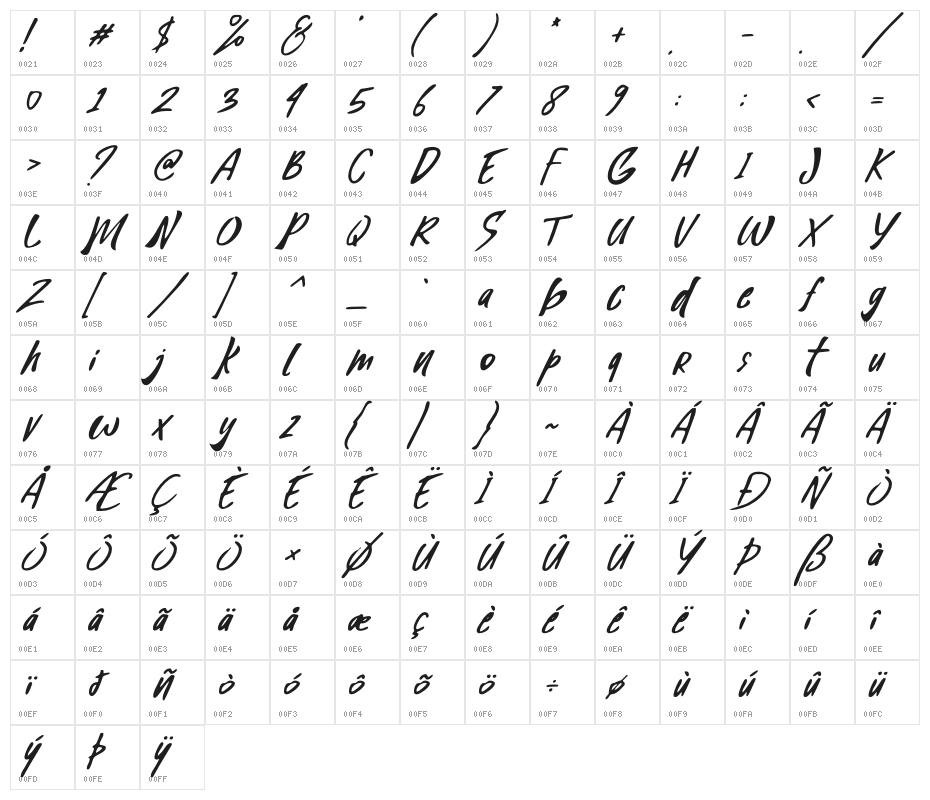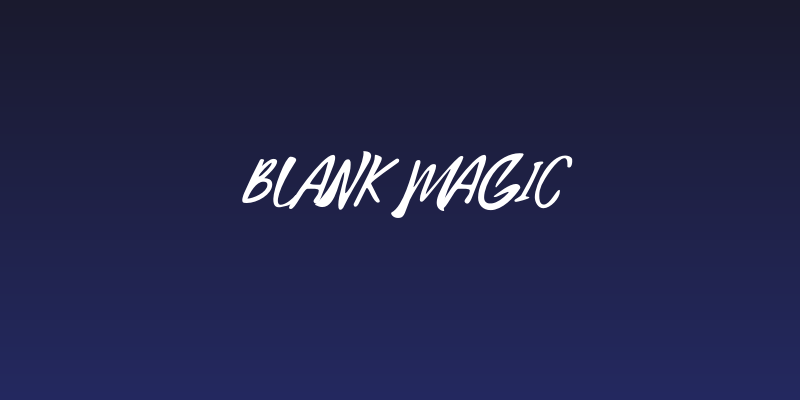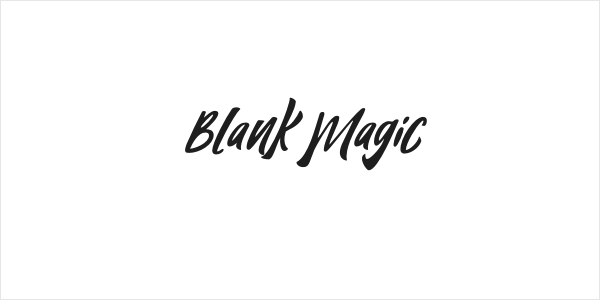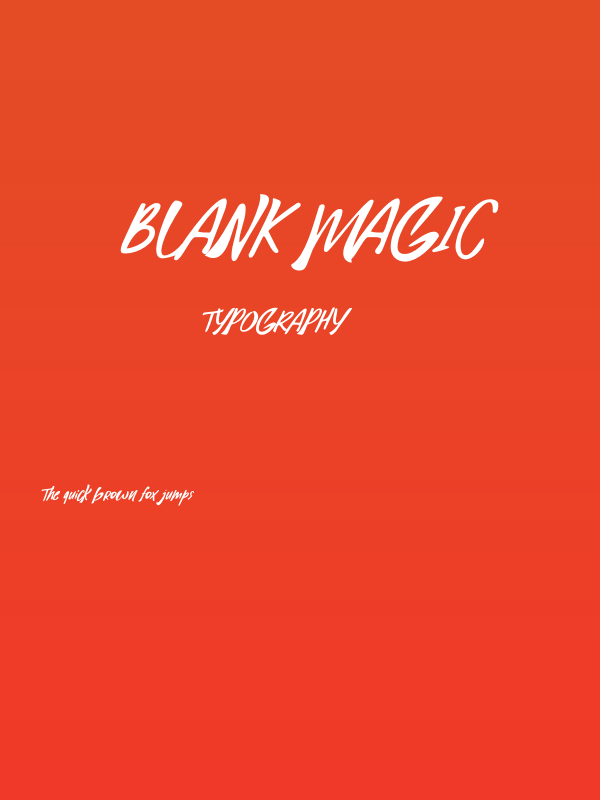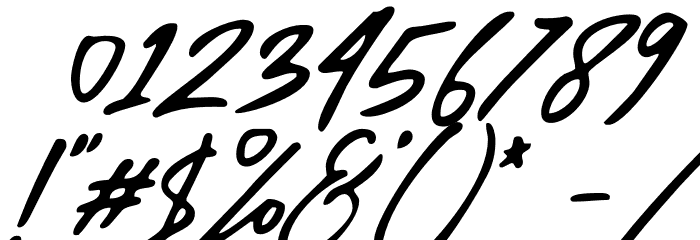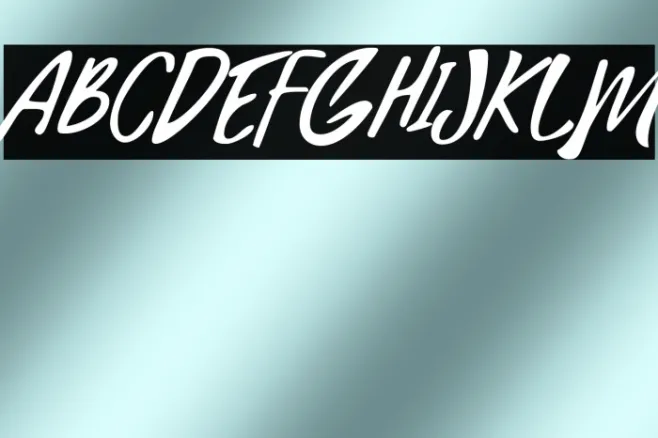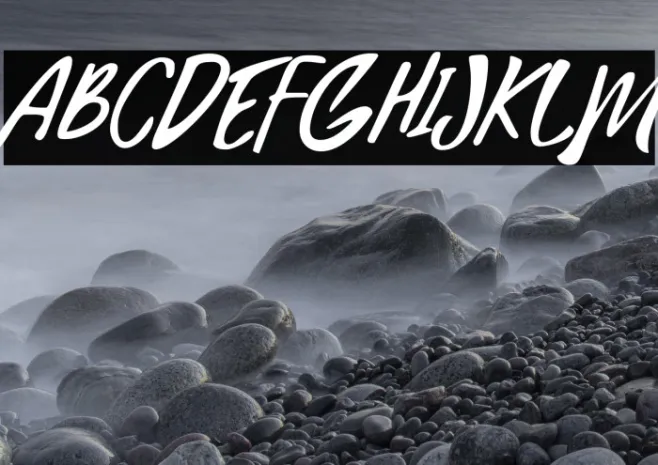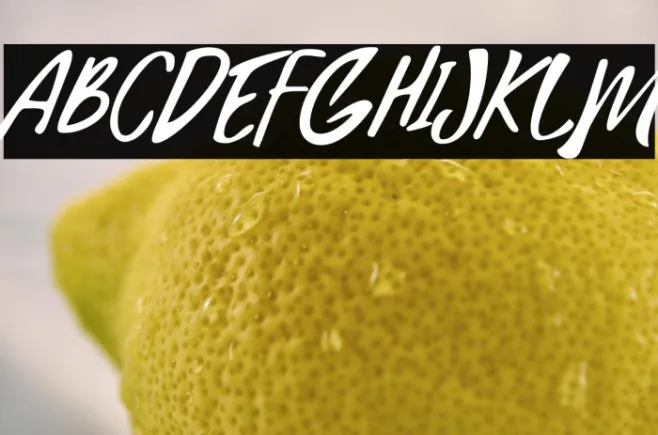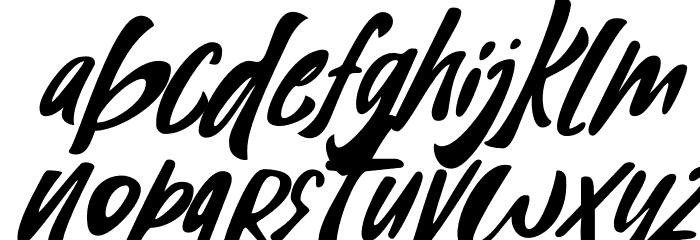
Blank Magic Font
Blank Magic Description
This font features a bold and expressive handwritten style, characterized by its fluid and dynamic strokes. The letters are slightly slanted, giving a sense of motion and energy. The uppercase and lowercase letters maintain a consistent style, with the uppercase being slightly larger and more pronounced. The numbers and special characters follow the same energetic and bold design, making them stand out. The overall appearance is both artistic and modern, suitable for creative projects that require a personal touch.
| Proposed Projects | Ideal for branding, logos, posters, and invitations where a personal and artistic touch is desired. |